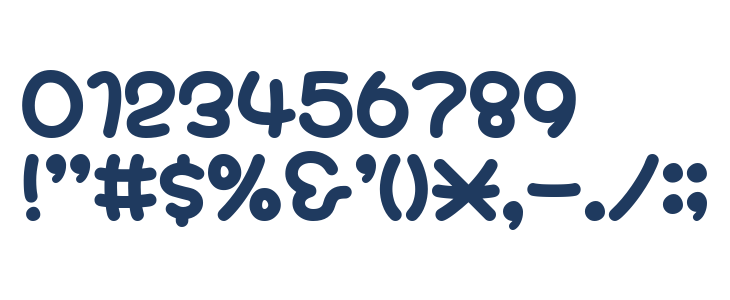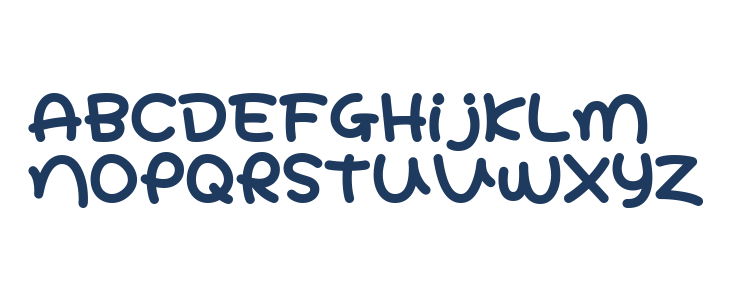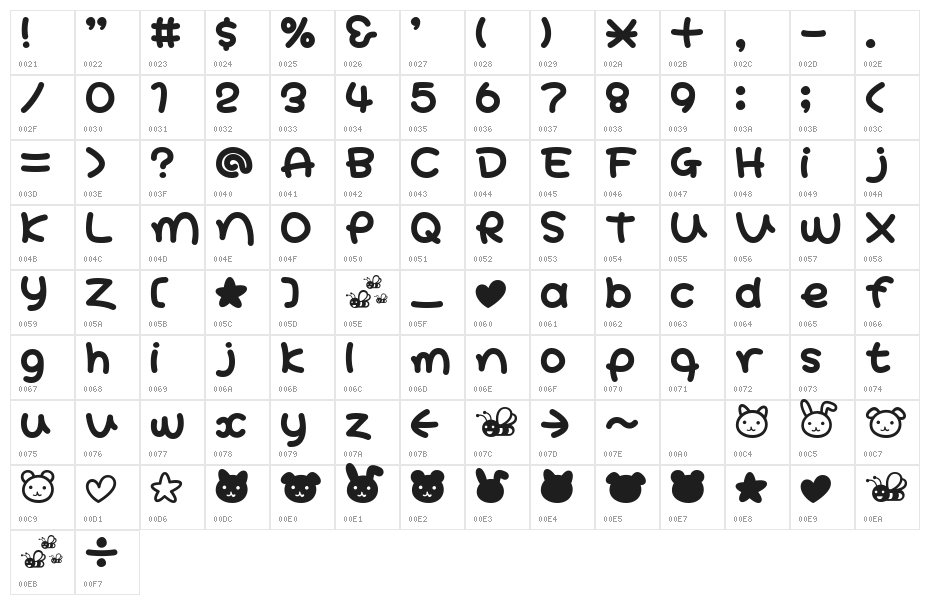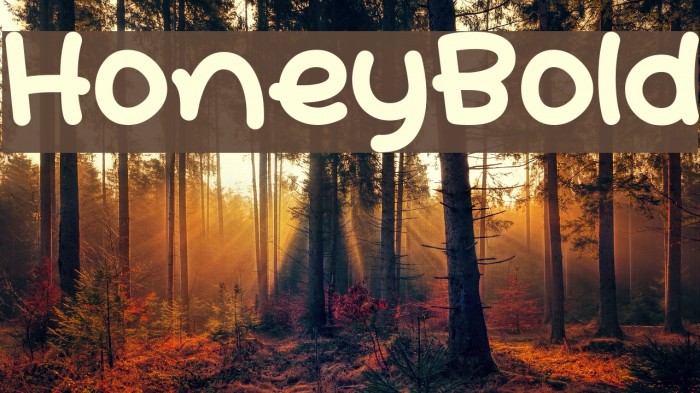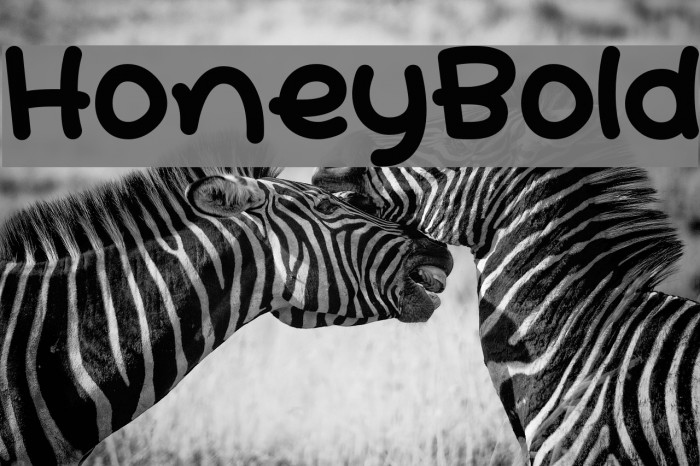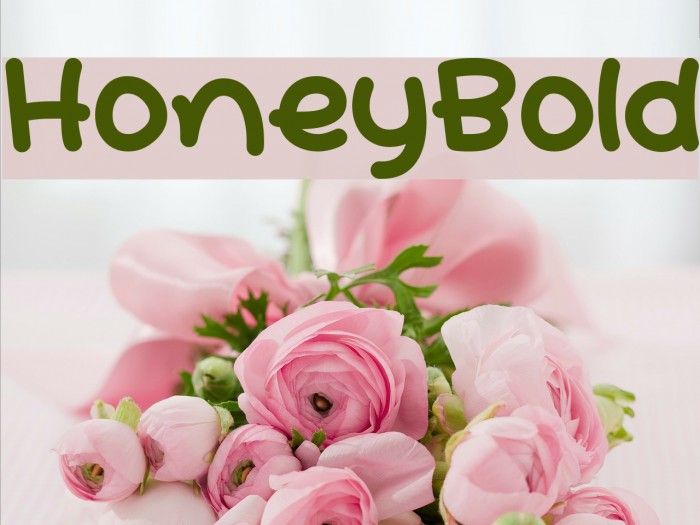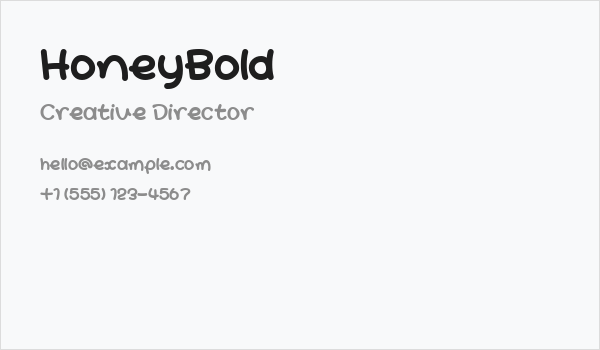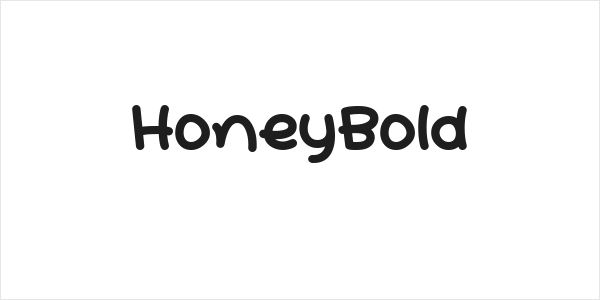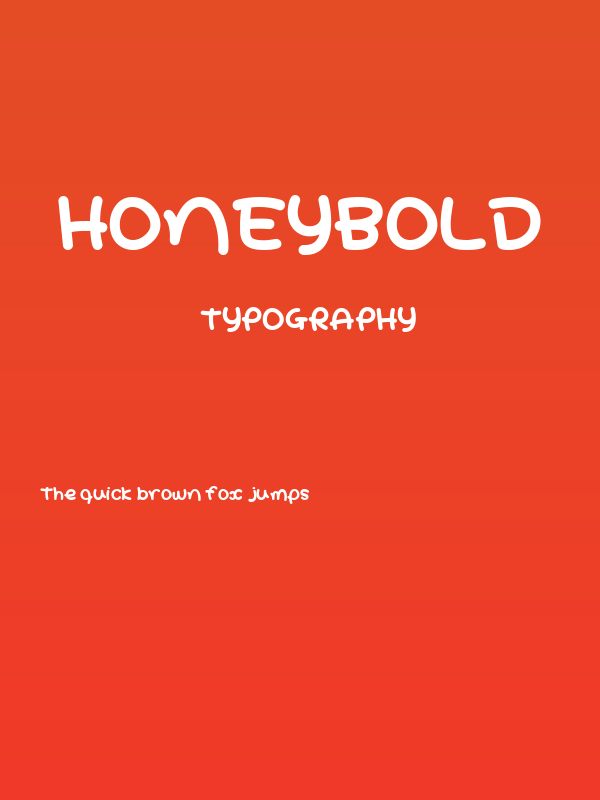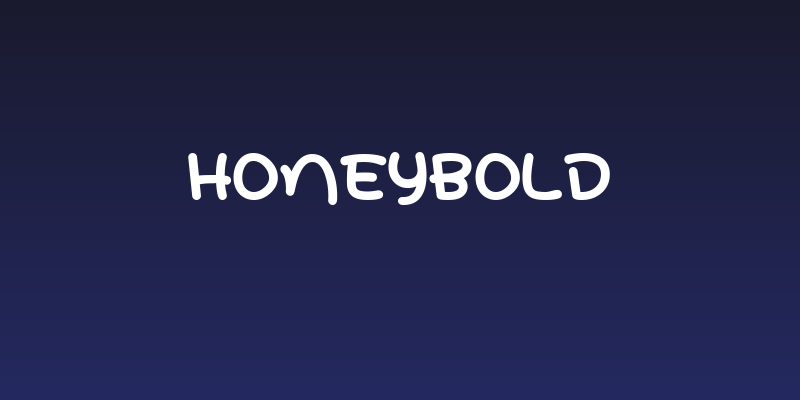
HoneyBold Font
HoneyBold Description
This playful and bold font features rounded, bubbly characters that convey a sense of fun and whimsy. The letters are thick and consistent in weight, giving them a strong presence on the page. The rounded edges and smooth curves create a friendly and approachable feel, making it ideal for informal and creative projects. The font maintains a uniform stroke width throughout, contributing to its bold appearance. Its unique style is both eye-catching and memorable, suitable for designs that aim to stand out.